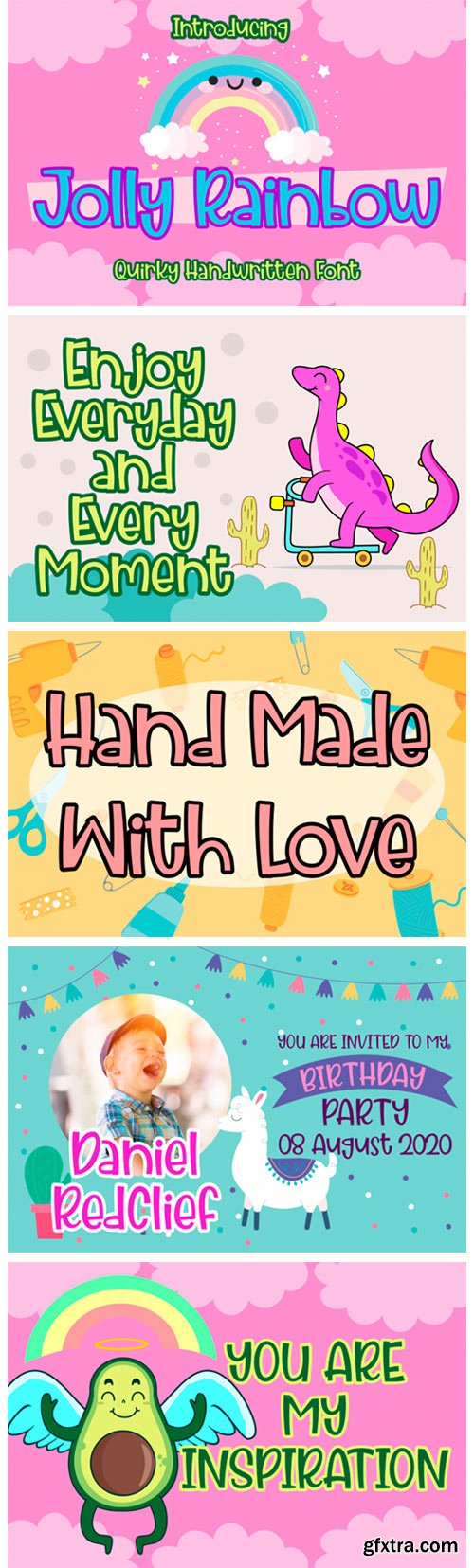
Jolly Rainbow Font
Jolly Rainbow is a quirky and colorful display font. Its friendly feel makes this font incredibly versatile, fitting a wide range of contexts. Add it to your creative ideas and notice how it makes them stand out!